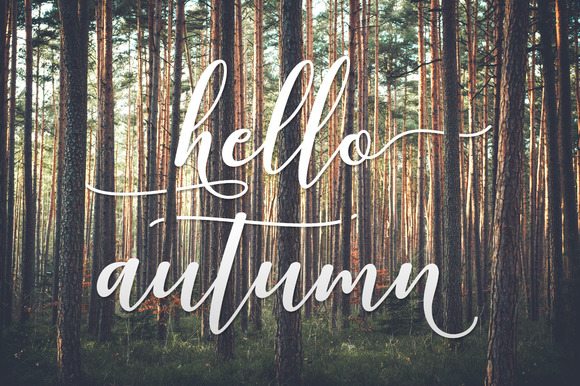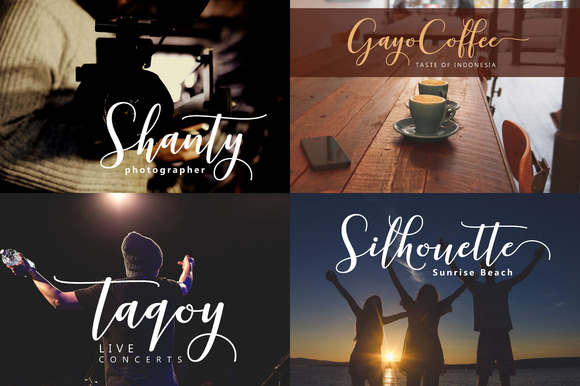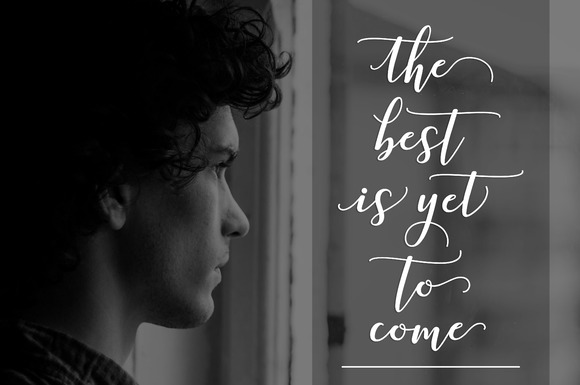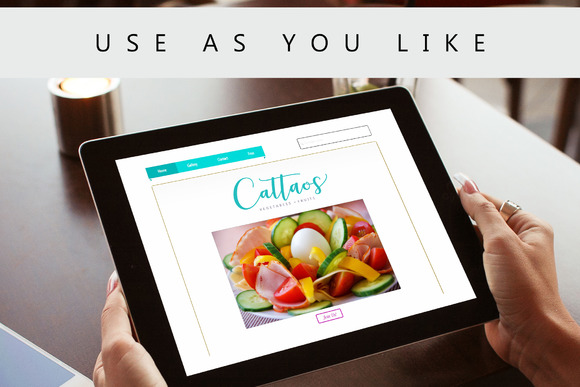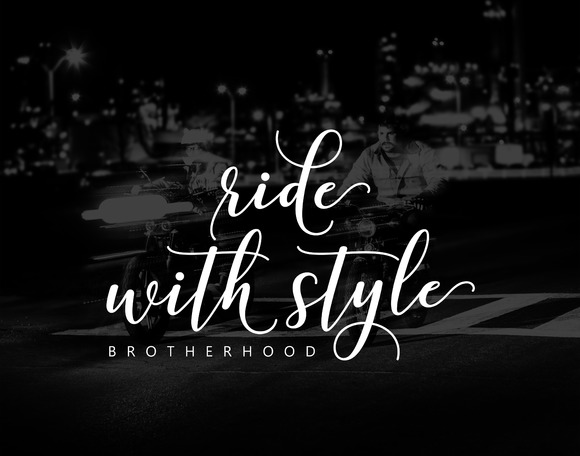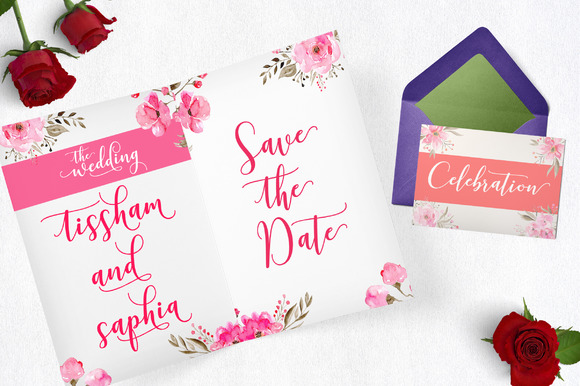
Introduction to Kissita Font
Kissita is stunning set of 16 calligraphy fonts (1 main font with 15 alternates.
) You will be able to create unlimited variations with this stunning font and never run out of ideas for your next project.
Kissita Font offers exceptional quality and versatility, making it a valuable addition to your design toolkit. Whether you’re creating for personal projects or commercial use, Kissita Font delivers professional results.